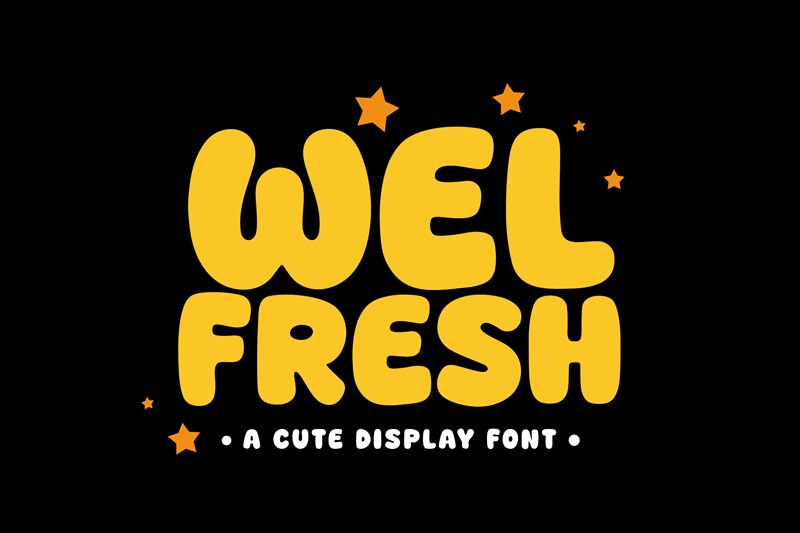
Welfresh is a cartoon font designed by Khurasan™. Crafted with a flair for playfulness, it’s a free font that brings excitement to the page. Its smooth and friendly shapes make it approachable and suitable for youthful and modern designs.
Use Welfresh for branding, packaging, labels, logotypes, headlines, posters, apparel, stickers, children’s books, magazines, invitations, marketing, banners, and social media.